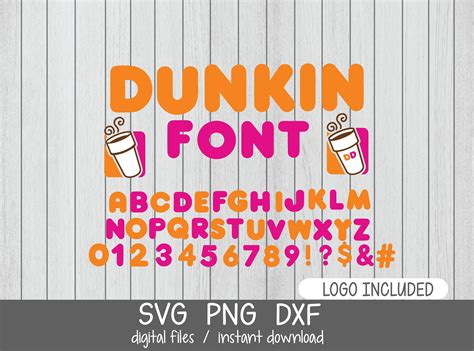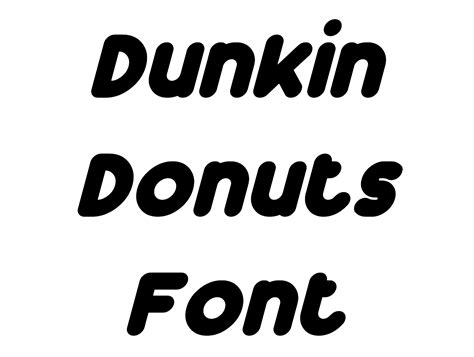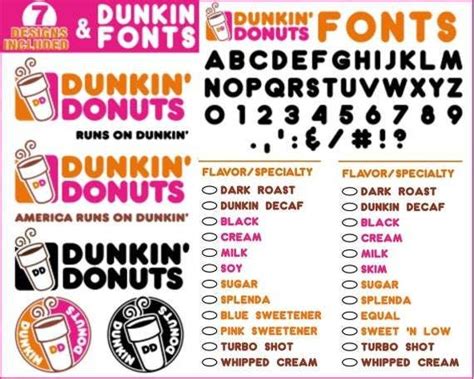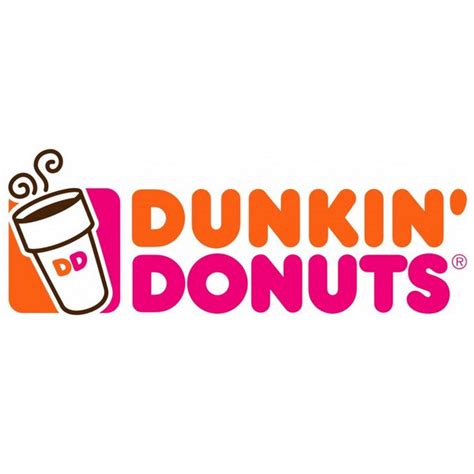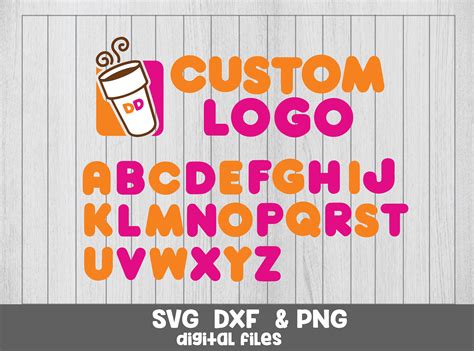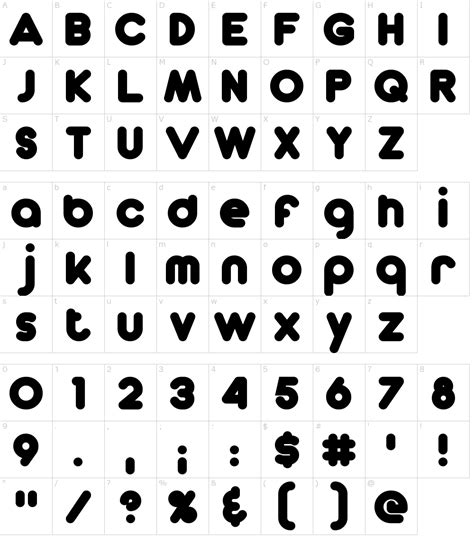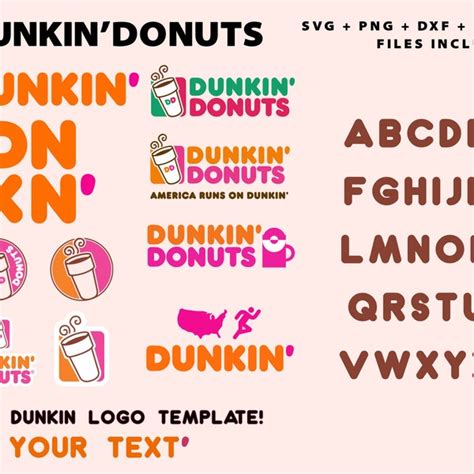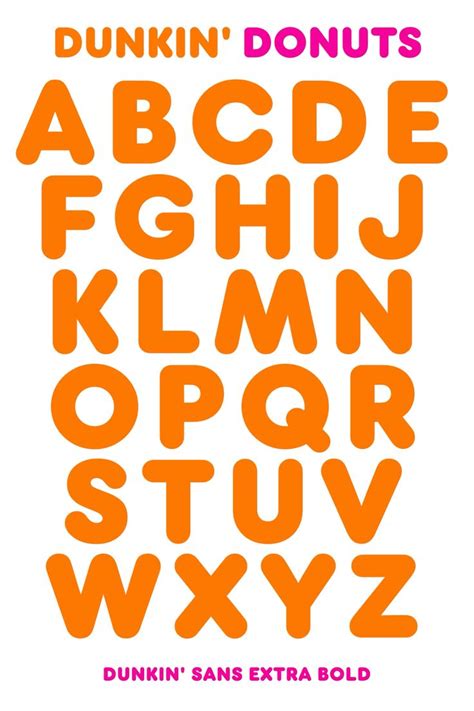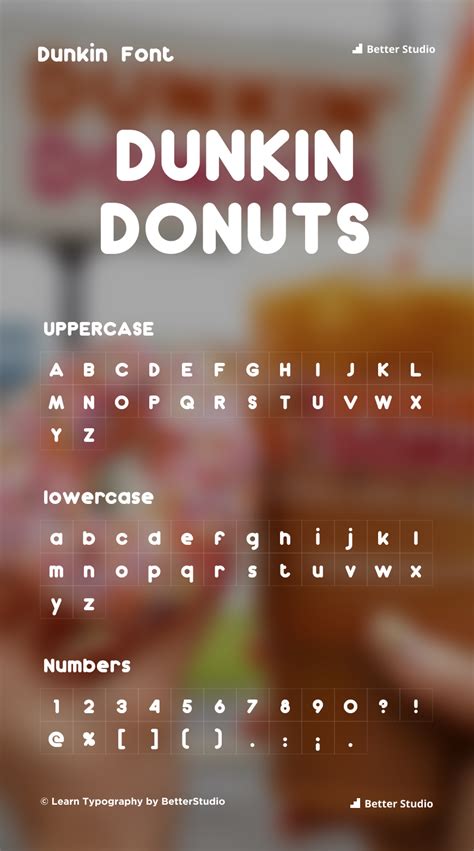
DUNKIN DONUTS FONT
The dunkin donuts font is a distinctive and instantly recognizable type design that has become synonymous with the popular coffee and donut chain, Dunkin' Donuts. This font plays a crucial role in the brand's visual identity, appearing on everything from signage and menus to packaging and advertising materials. The design is characterized by its playful and friendly aesthetic, which reflects the brand's image as a fun and approachable place to enjoy a quick bite or a cup of coffee.
The font's design is a unique blend of modern and retro elements, creating a sense of familiarity and nostalgia. Its rounded shapes and slightly exaggerated features give it a friendly and inviting appearance, making it ideal for conveying the brand's cheerful and accessible personality. This font has become an integral part of Dunkin' Donuts' brand identity, helping to establish a strong visual connection with its customers.
One of the key benefits of the dunkin donuts font is its versatility. It can be used in various sizes and styles to create a wide range of visual effects, from bold headlines to subtle text. This flexibility allows the brand to maintain a consistent look and feel across different media, ensuring that the font remains a recognizable and memorable element of the Dunkin' Donuts experience.